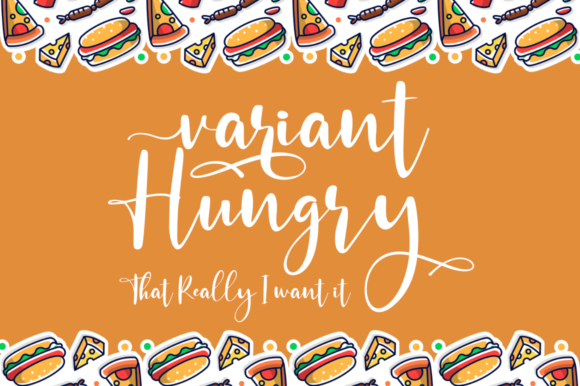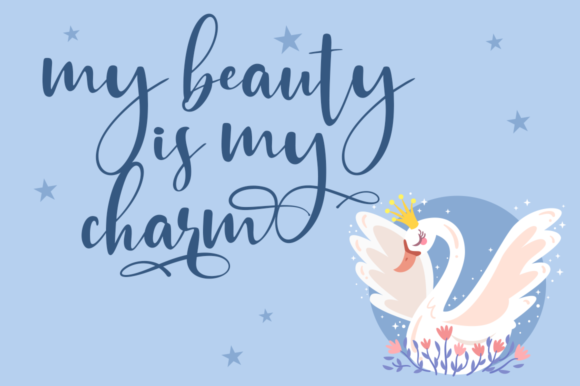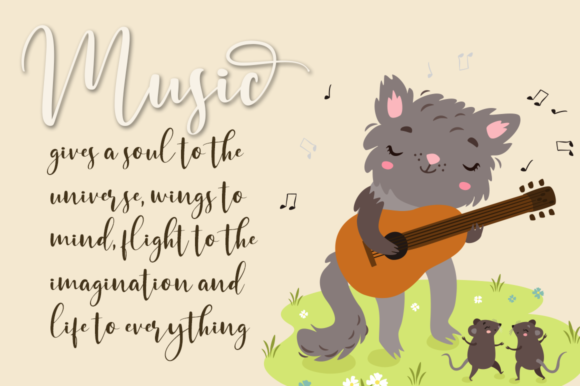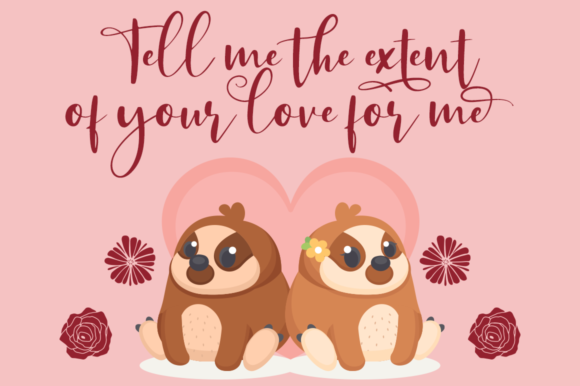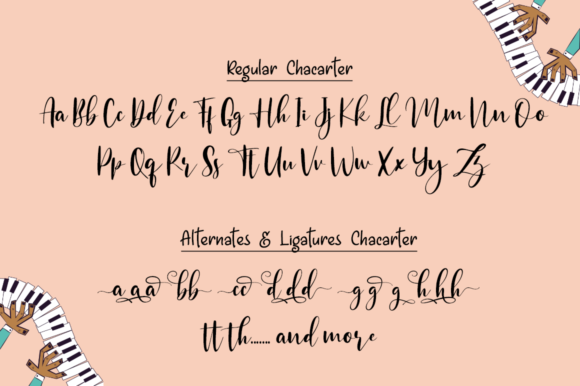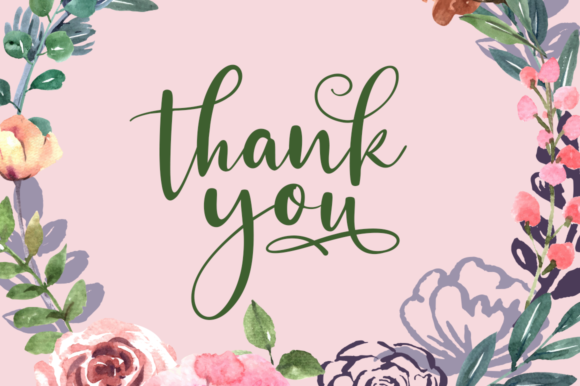
Piano Teacher Font
About Piano Teacher Font
Piano Teacher is a sweet, soft hand-lettered font. It features gorgeous swashes and ligatures that make this script incredibly versatile. Whether you’re looking for fonts for Instagram or calligraphy scripts for DIY projects, Piano Teacher will turn any creative idea into a true piece of art!